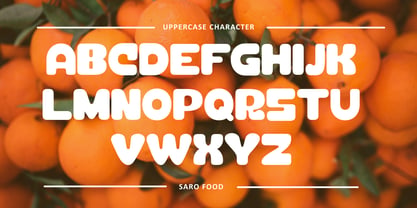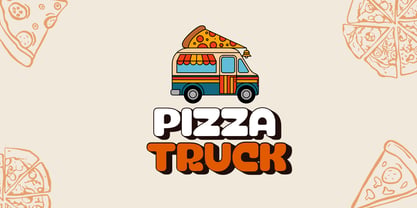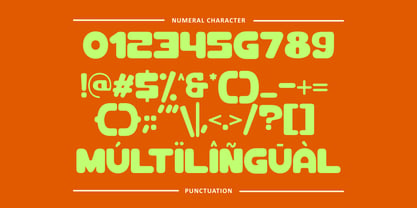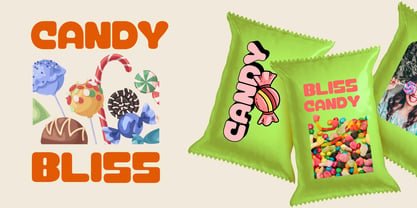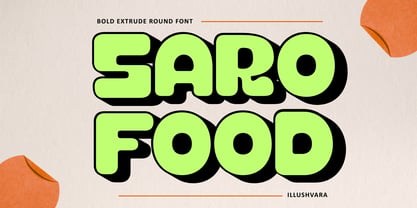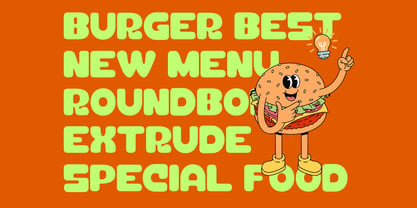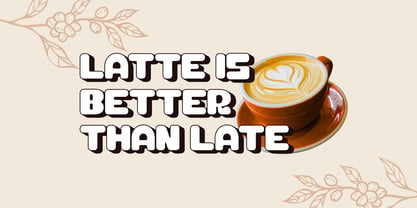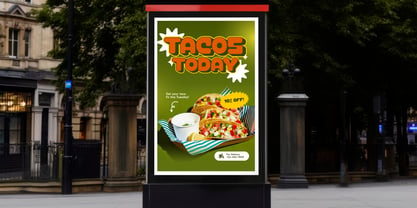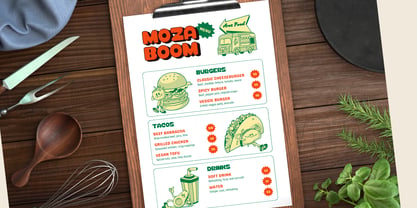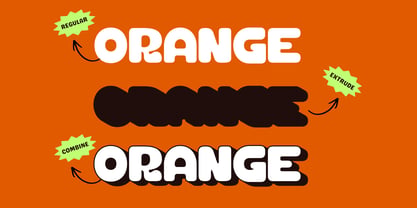
Saro Food
by Illushvara
The Saro Food Font Family was designed by Bayu Suwirya and published by Illushvara. Saro Food contains 2 styles and family package options. More about this family
Saro Food is a bold all-caps display font crafted to make your designs pop with flavor. Featuring strong rounded shapes and dynamic extrude style, this typeface delivers a fun, dimensional look that instantly grabs attention. Perfect for posters, packaging, coffeeshop branding, burger and pizza labels, cafe menus, and restaurant promotions, Saro Food brings a tasty, energetic vibe to every project. Make your brand louder, brighter, and more delicious with Saro Food.
Designers: Bayu Suwirya
Foundry: Illushvara